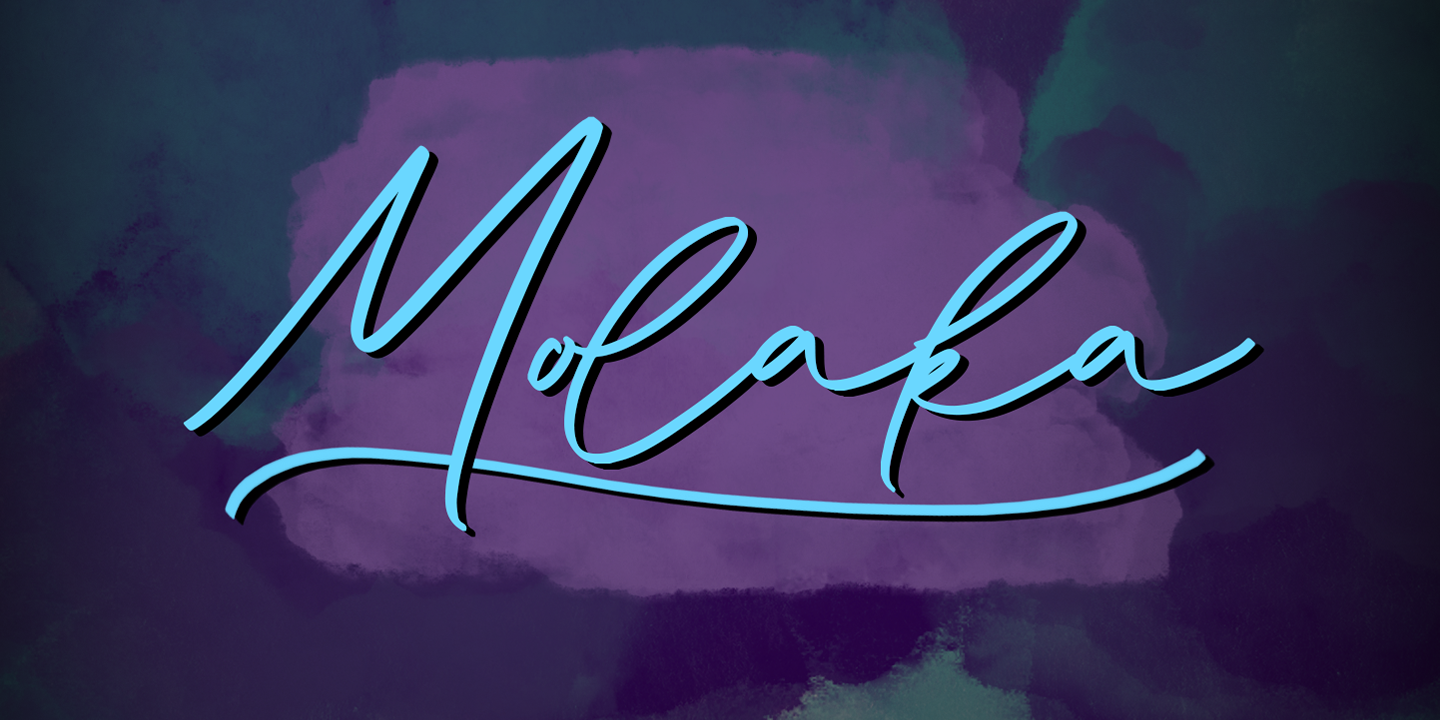
Molaka Font is a sophisticated and fashionable script typeface, perfectly suited for projects that demand an elegant, personal touch with a flowing, signature-style aesthetic. Imagine it gracing the luxurious invitations for a high-end wedding, adding an intimate and bespoke feel to product packaging for artisanal goods, or providing a captivating visual signature for personal branding and designer portfolios. It's also an excellent choice for crafting heartfelt greeting cards, designing unique logos that convey authenticity and grace, or infusing social media graphics and blog headers with a truly refined and inviting personality. If you're looking to convey elegance, warmth, and an undeniable sense of bespoke craftsmanship, Molaka Font is an outstanding selection.
What makes Molaka Font so exciting? It’s its unique ability to capture the natural spontaneity and elegant flow of genuine handwriting, translated into a versatile digital format. This font features graceful connections, distinctive curves, and an inky smoothness that gives it an undeniable charisma and visual richness. Despite its delicate appearance, Molaka Font is meticulously designed to maintain excellent readability, ensuring your message is communicated beautifully and with a personal touch. Designers will appreciate its versatility in creating designs that feel both intimately personal and professionally polished, making it a go-to choice for brands and individuals who aim to foster trust and convey a high-quality, bespoke image through their typography.
The Molaka Font family, in its free version, typically showcases a singular, beautifully crafted script style that perfectly embodies its unique appeal. While the free version may not feature extensive weight variations like a traditional text font, its strength lies in its inherent personality and it often includes a rich set of stylistic alternates, swashes, or ligatures that enhance its handcrafted aesthetic and allow for unique customization. These subtle details ensure that Molaka Font maintains its cohesive and captivating look across various applications, from elegant brand endorsements to charming personal correspondence. Discover the authentic charm of Molaka Font Free Download for your personal projects.